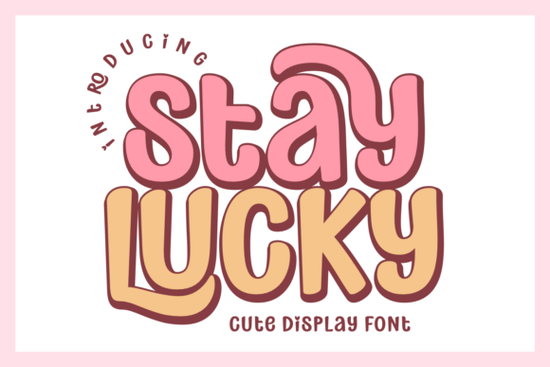
If you're looking for a display font that feels cheerful, nostalgic, and effortlessly fun without sacrificing readability or versatility Stay Lucky Font fits the bill. It’s not just another retro typeface; it’s a thoughtfully crafted collection that balances 70s charm with modern usability. Whether you’re designing birthday party invites, t-shirt graphics, digital planners, or YouTube thumbnails, this font brings warmth and personality without feeling dated or overly busy.
What makes “Stay Lucky” work so well for real projects?
First, it’s built for clarity. Even at smaller sizes like on stickers or mobile planner layouts the bold, wavy letterforms stay legible. That’s rare in playful display fonts, where cuteness sometimes sacrifices function. The set includes stylistic alternates and ligatures, so you can fine-tune spacing and rhythm without switching fonts. And because it supports multiple languages, it’s practical for small businesses serving diverse audiences.
The bundle gives you more than just OTF files: SVG and PNG versions make it easy to use in Cricut, Silhouette, Procreate, or Canva. You’ll also find bubble-letter variants and psychedelic-inspired swashes ideal for summer-themed branding or boho-style product labels. It’s especially handy if you’re making printable wall art, greeting cards, or custom merch for kids’ products, where tone matters as much as typography.
How does it compare to other popular display fonts?
Like Retro Groovy Font, Stay Lucky leans into maximalist energy but with softer edges and more consistent spacing. If you’ve used Howdy Cowgirl Font for rustic charm or Brave Treat Font for bold confectionery vibes, you’ll notice Stay Lucky sits comfortably between them: friendlier than grunge, bolder than minimalist script, and more cohesive than a random font stack.
It shares some DNA with Grunge Project Font in terms of texture and attitude but avoids harsh distortion or noise, making it safer for clean branding. And while Beautiful Lashes Font excels in elegant, feminine contexts, Stay Lucky is its upbeat, candy-colored cousin perfect when you want joy and movement instead of delicacy.
Where do designers actually use it?
- Print-on-demand shops: T-shirts, mugs, and tote bags with phrases like “Good Vibes Only” or “Born to Be Wild” pop with its bold curves.
- Digital planners & stickers: Its rounded shapes and friendly weight hold up well on screen and the included PNGs drop right into Notion or GoodNotes.
- Small business branding: Cafés, toy shops, or indie boutiques use it for signage, packaging, or social media banners where approachability matters.
- YouTubers & content creators: Thumbnails benefit from its high contrast and expressive lettering especially for lifestyle, craft, or family-focused channels.
One thing users consistently mention: it scales well. Unlike many retro fonts that blur or lose impact below 36pt, Stay Lucky stays readable down to ~24pt in print and even smaller on retina displays. That flexibility saves time you won’t need to swap fonts mid-project just to fit text in a layout.
If you enjoy mixing eras in your designs, you’ll appreciate how it pairs with neutral sans-serifs (like Montserrat or Inter) or even subtle serif companions. Try using it for headlines only, then layer in a simple body font this keeps focus where it belongs without overwhelming the eye.
A quick checklist before downloading
- ✅ You need a display font that works across both digital and physical formats (SVG, PNG, Procreate, OTF)
- ✅ Your project benefits from retro warmth not harsh grit or ultra-thin elegance
- ✅ You want built-in variety (swashes, alternates, ligatures) without buying separate add-ons
- ✅ Multilingual support matters for English plus Spanish, French, Portuguese, or German customers
- ✅ You’re okay with a playful, confident tone not formal, minimal, or corporate
If those match your needs, Stay Lucky Font is worth trying. It’s been a steady best-seller for good reason: it solves real problems without overcomplicating things. Start with one layout maybe a birthday card or Instagram story and see how naturally it fits your voice.